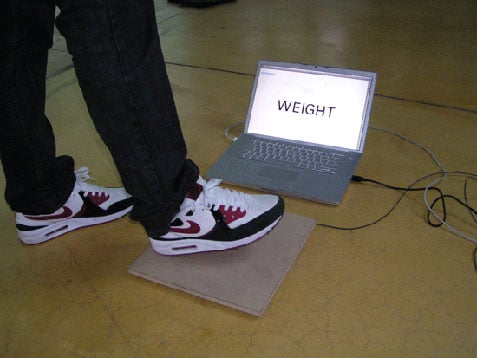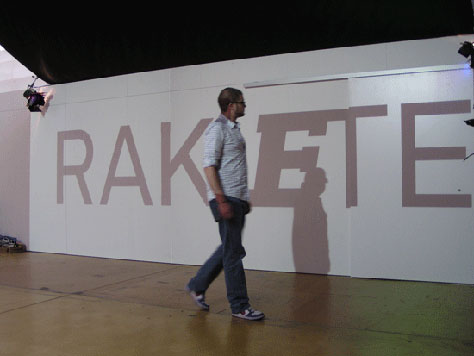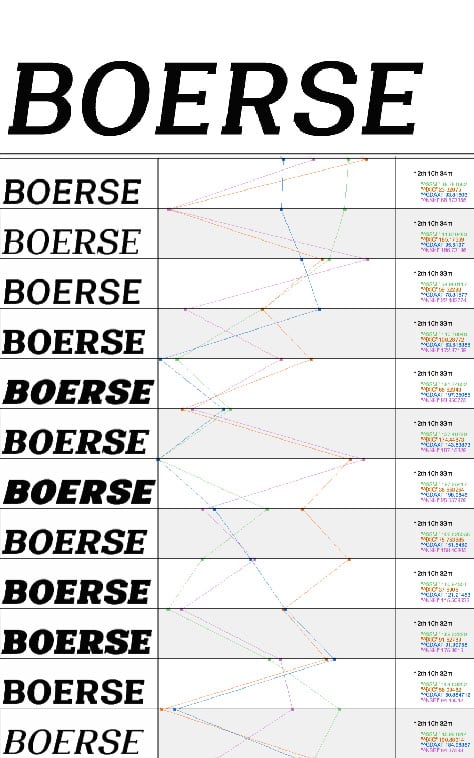
This Dynamic Typeface Interacts with You
LAIKA is an experimental interactive typeface. See it in action!
With LAIKA, there is finally a font that can seamlessly use the whole spectrum of its cuts. A font that is able to move between its extremes in real time. An interactive font that is able to respond to its surroundings. A font that questions deadlocked dogmas and throws up completely new design questions, and thus has the potential to revolutionize the understanding of digital typography.
Type has always been something static.
In considering type we speak, for example, in terms of bold, thin, grotesque, classical, roman, italic: terms that all describe a defined variant of the font family. Thus we only ever see individual fixed points in what is actually an infinitely wide space of possibilities.
With digitalisation, however, typeface has left its manifest image – cast in lead – behind, and with it all the associated limitations. Computer-based applications, the Internet and new, fluid advertising media allow us to go beyond the existing, static view of typography.
LAIKA is neither bold nor thin, but swings between these two extremes. Its form is no longer defined statically, but alters dynamically. As well as the font’s weight, the stroke contrast, serif lengths and italic angles of the font all behave dynamically too. All these parameters can be driven and influenced by a range of inputs, in order to create a typeface that changes constantly in real time.
LAIKA requires a whole new, dynamic understanding of typography.
Why should a typeface be rigidly set, if it is not going to be printed? In a dynamic medium, why shouldn’t the form and the character of the typeface be understood dynamically as well? Why shouldn’t its forms change, transform, and respond to circumstances?
Prototypical applications show their potential in combination with interactive, audiovisual inputs, data requested from the Internet in real-time (RSS feeds), and electronic components such as sensors or simple switches. In this way, an advertising text could react to passers-by, stock market prices could influence a corporate typeface, or ECG measurements taken while writing could breathe new emotional life into digital love letters.
With LAIKA, there is finally a font that can seamlessly use the whole spectrum of its cuts. A font that is able to move between its extremes in real time. An interactive font that is able to respond to its surroundings. A font that questions deadlocked dogmas and throws up completely new design questions, and thus has the potential to revolutionise the understanding of digital typography.
LAIKA "Roman" and LAIKA "as-heavy-as-you-are":
LAIKA interacting with passers-by:
LAIKA, responsive to stock exchange quotations:
LAIKA can be responsive to any inputs you could imagine. Here it is responsive to the circadian rhythm of a geranium: